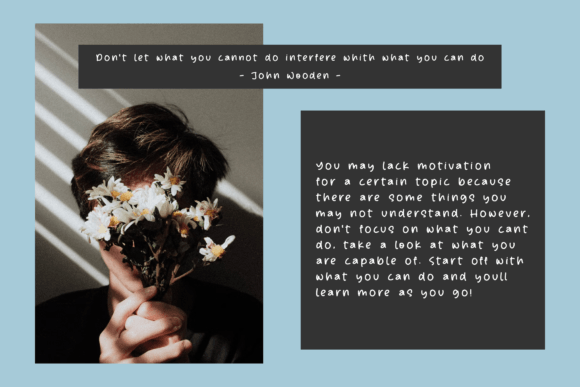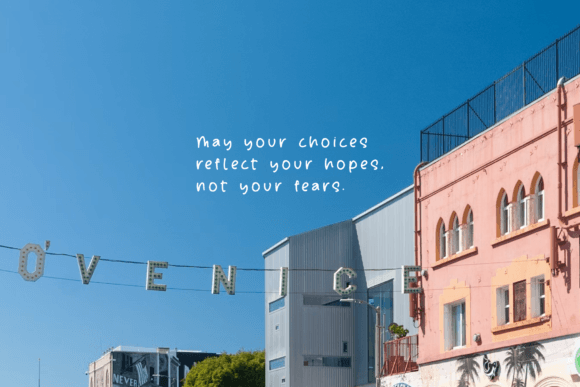
About Writing Notes Font
“Writing Notes” is a charming handwritten font that adds a personal and delightful touch to your design projects. This versatile font is well-suited for a wide range of applications, making it an excellent choice for logos, branding projects, homeware designs, product packaging, quotes, posters, apparel designs, book covers, invitations, greeting cards, labels, photography watermarks, special events, and various other creative endeavors that benefit from a beautiful script style.
The appeal of “Writing Notes” lies in its ability to convey a sense of authenticity and warmth. Each character is crafted to have a handwritten and personal feel, making it an ideal choice for projects where you want to create a heartfelt and visually appealing impression. Whether you’re working on digital or print materials, “Writing Notes” offers a versatile and stylish script that adds a touch of charm to your content.
For personal branding, product designs, promotional materials, and a wide range of design applications, “Writing Notes” provides the creative freedom to make your projects stand out. Its handwritten script style can enhance the emotional appeal of your designs and effectively communicate your message to your audience.
In summary, “Writing Notes” is a valuable font that brings authenticity and charm to your creative work. Its handwritten script style and versatility make it suitable for a variety of applications, and its ability to convey warmth and personalization sets it apart. With “Writing Notes” in your font collection, your design projects will exude a sense of genuine connection and charm that leaves a lasting impression.